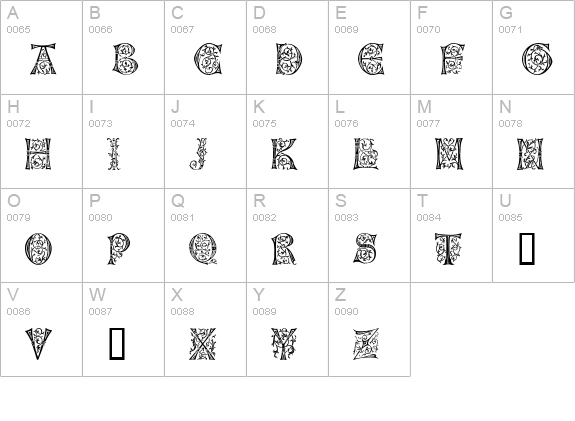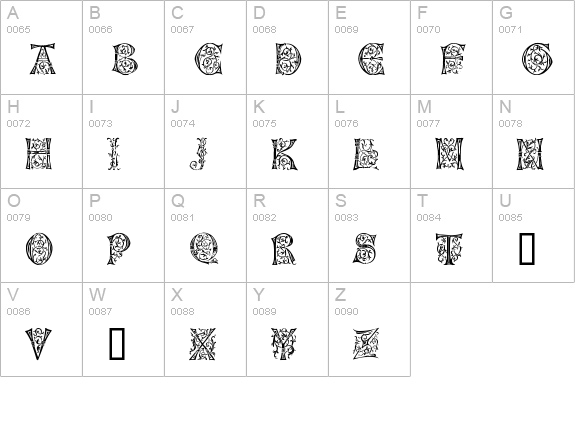
The German Caps font is a bold and eye-catching typeface that exudes a sense of strength and sophistication. With its sharp lines and elegant curves, this font is perfect for creating impactful headlines, logos, and branding materials. The uppercase characters are meticulously designed to make a statement and leave a lasting impression. What's even better is that the German Caps font is available for free download at FontsMarket.com. Whether you're a designer looking to add a touch of German-inspired flair to your projects or simply want to enhance your creative work with a unique font, the German Caps font is a fantastic choice. Download it today and elevate your designs with this striking and versatile typeface.